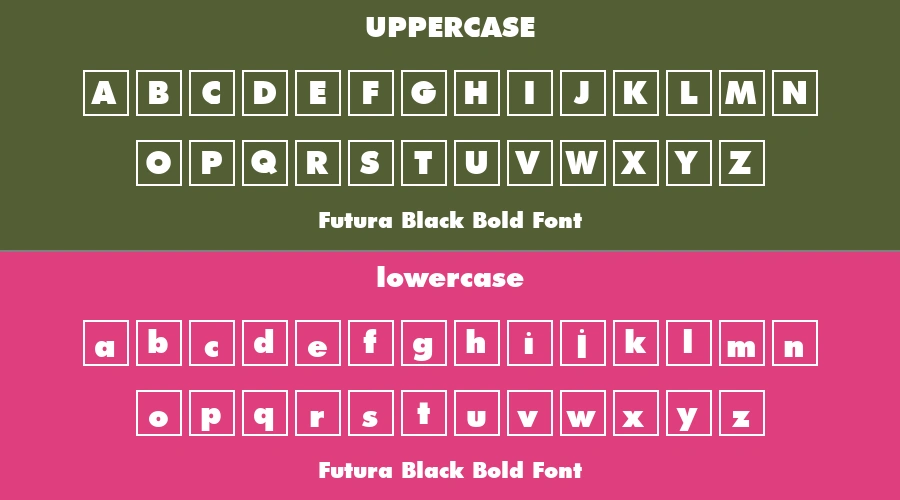
About Futura Black Bold Font
Designed with precision, Futura Black Bold Font merges structural clarity with visual rhythm in every character. This versatility makes it particularly effective for packaging hero, where memorability and manufacturing quality directly impact communication quality. Each letterform demonstrates meticulous craftsmanship.
Technical excellence shines through elements like ink flow effects and case-sensitive forms, enhancing typographic versatility. In page numbers settings, Futura Black Bold Font proves its worth through superior overlay performance. The thoughtful execution of stem weight and scientific authority ensures professional results.